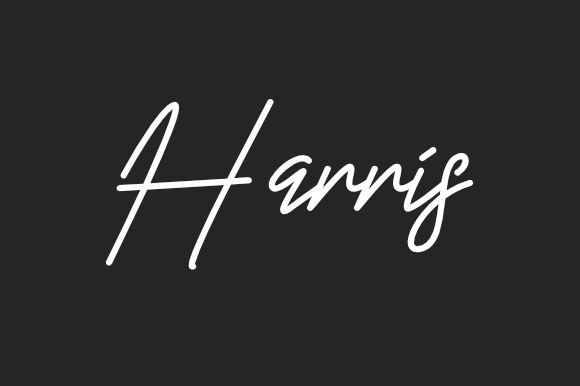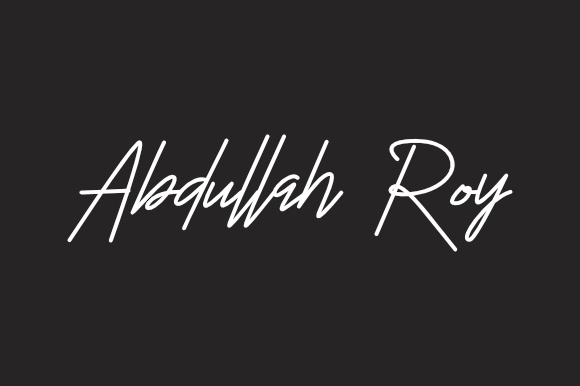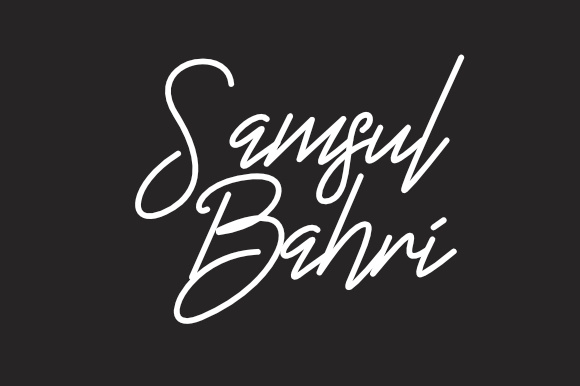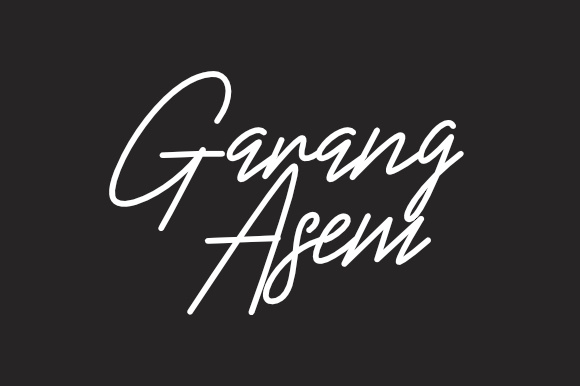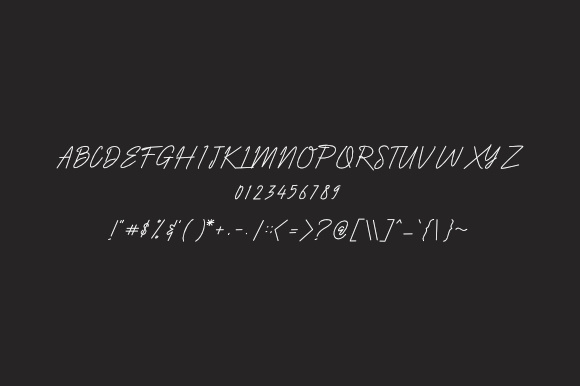
HomeScript FontsHarris Font Script Fonts Harris Font FacebookXPinterestWhatsApp Harris Font Poster 2 Harris Font Poster 3 Harris Font Poster 4 Harris Font Poster 5 About Harris Font The Harris is a classy signature typeface. It’s perfect for logos, posters, invitations, and much more! DOWNLOAD NOW People also explored Lettia Font Barcelona Font Motoride Font RunTron 1983 Marthein Font Putrey Font Burnt Orange Bella Canvas 3001 Mockup Dasher Font Black Marble Bella Canvas 3005 Mockup 321 0 TagsHarris Font Previous articleSweetland Script FontNext articleLand of Laugh Font LEAVE A REPLY Cancel reply Comment: Please enter your comment! Name:* Please enter your name here Email:* You have entered an incorrect email address! Please enter your email address here Website: Save my name, email, and website in this browser for the next time I comment. Personal Use Free New System Personal Use Free Read more about this font Wadjet Personal Use Free Read more about this font Cinderella Personal Use Free Read more about this font Carved Wood Personal Use Free Read more about this font BLOG Best Fonts for YouTube Videos: Make Your Thumbnails Stand Out Best Fonts for YouTube Videos: Make Your Thumbnails Stand Out Choosing the right font can make a massive difference in how your YouTube videos perform.... Where to Buy American Fonts Online in 2024 Free vs Paid Fonts: Why Investing in Premium Fonts Is Worth It Modern Sans-Serif Fonts That Brands Love in 2025